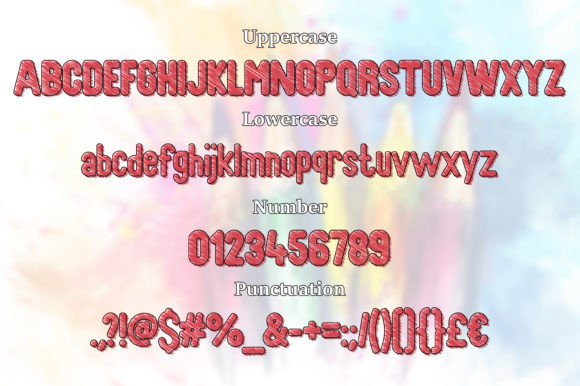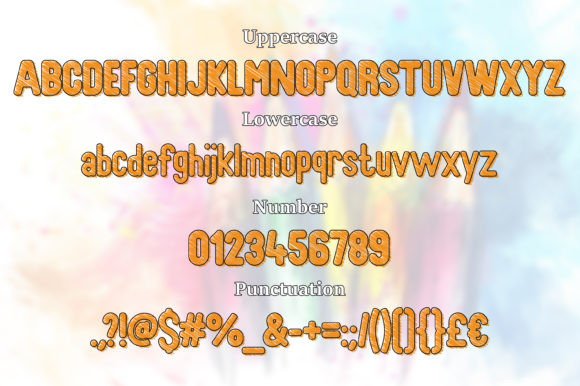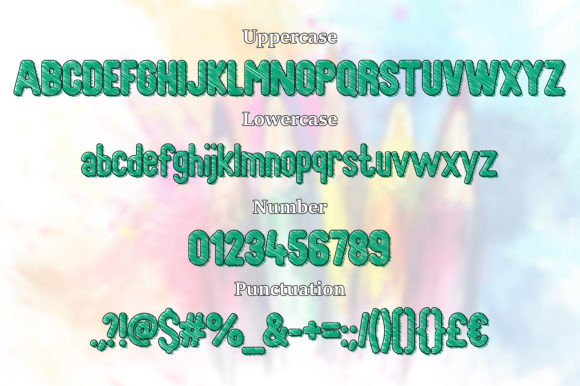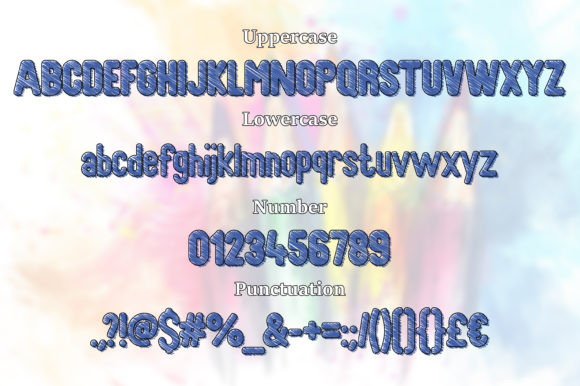
Unlock Your Creativity with the Artsy Alphabet Font
Have you ever stared at a blank canvas, waiting for the perfect spark to ignite your creativity? For designers, this moment is a familiar feeling, a chance to bring a new idea to life. And sometimes, all it takes is the right tool to get those creative juices flowing. Enter the Artsy Alphabet Font, a captivating typographic creation that’s about to revolutionize the way you think about typography.
This stunning font is more than just a pretty face – it’s a versatile design solution that’s perfect for a wide range of projects. With its carefully chosen colors and excellent legibility, the Artsy Alphabet Font is an ideal choice for designers who want to add a unique touch to their work. Whether you’re working on print designs, web designs, or promotional materials, this font is sure to make your projects stand out.
Artsy Alphabet Font Key Features
- Unique Hand-Drawn Design: Each letter is carefully crafted to provide a unique, artistic feel.
- Customization Options: Allows for easy color customization, enabling designers to match the font with their brand identity.
- Scalability: Designed to be highly scalable, making it suitable for use in various contexts, from small text to large headlines.
Designer Review: Artsy Alphabet Font
First impressions of the Artsy Alphabet Font are quite positive. ✨ The creative, whimsical style is reminiscent of hand-painted lettering, making it perfect for illustrations and children’s content. The font’s playful nature and varied character shapes add an extra layer of personality to any text it’s used with. ✨
One of the font’s strengths is its flexibility. It’s suitable for a wide range of applications, from posters and flyers to book covers and digital products. The font’s versatility is also evident in its ability to work well in both uppercase and lowercase formats. ✨
- ⚠️ Limited character set: The Artsy Alphabet Font is primarily designed for display purposes and lacks a comprehensive character set. This may make it difficult to use for extensive body text.
- ⚠️ Font size limitations: While the font works well at larger sizes, it can become distorted at smaller font sizes, which may impact readability.
Overall, the Artsy Alphabet Font is a unique and creative addition to any design project. While it may have some limitations, its playful style and versatility make it a great choice for those looking to add a touch of whimsy to their work. With careful use and consideration, the Artsy Alphabet Font can be a valuable asset in any designer’s toolkit.
Use the Artsy Alphabet Font to add a touch of whimsy and personality to your designs.
Experiment with different font sizes, colors, and styles to create a unique look.
Combine the Artsy Alphabet Font with other creative elements, such as illustrations or graphics, to create a visually appealing design.
The Artsy Alphabet Font is perfect for:
Children’s book covers and illustrations
Party invitations and decorations
Wedding stationery and decorations
Brand logos and marketing materials
Alternatives to Artsy Alphabet Font for Designers
Great Vibes is a beautiful, handwritten font that is perfect for adding a touch of elegance to your designs. It’s ideal for use in wedding invitations, quotes, and other creative projects. Great Vibes has a more refined and sophisticated look compared to Artsy Alphabet Font, making it suitable for more formal and upscale designs.
Carolyna Pro is a modern, cursive font that is great for adding a personal touch to your designs. It’s perfect for use in social media posts, advertising, and other marketing materials. Carolyna Pro has a more contemporary look compared to Artsy Alphabet Font, making it suitable for modern and trendy designs.